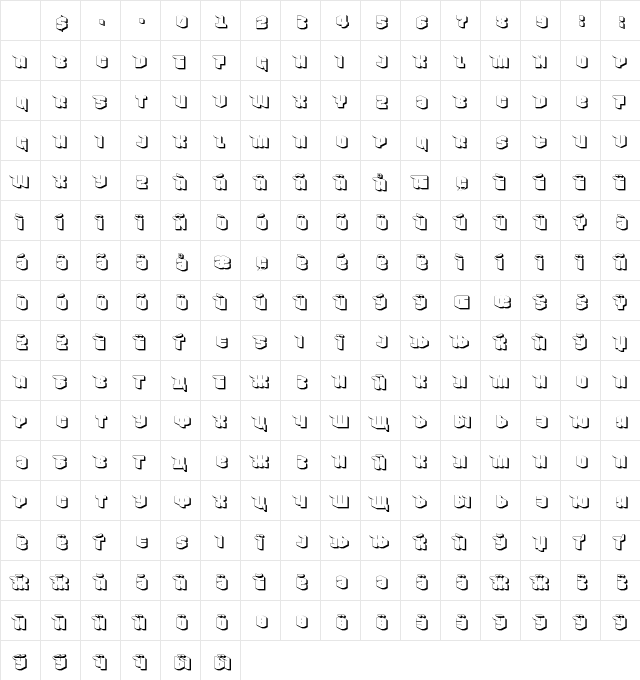
Complete Nowy Geroy 4F Shadow glyph index. Displaying only characters natively supported by Nowy Geroy 4F Shadow font.
Nowy Geroy 4F is built around its visual character rather than neutral utility - its distinctive forms are designed to make an impression at display sizes.
Font Pairing: Pair with a clean neutral sans-serif for body copy to let Nowy Geroy 4F's character lead without overwhelming the composition.
Pro Tip: Use Nowy Geroy 4F exclusively at display sizes - it was designed to be seen, not read at length. Let a neutral companion handle body copy.